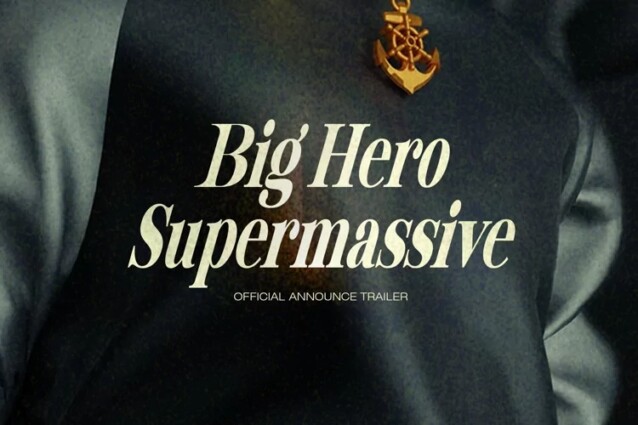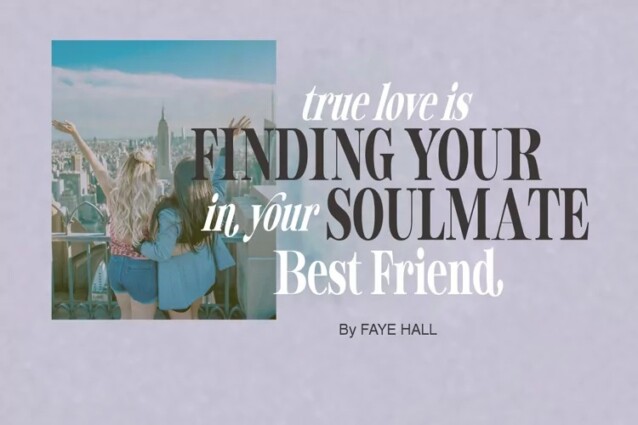
Ponita Font
Ponita Font is a modern elegant serif typeface crafted & designed by Gian Studio. Use this font to create logos, branding, advertisements, craft projects, shirts, decorations, wedding invitations, packaging, stickers, social media, quotes, magazines and more!
You can apply it to designs like social media posts, logos, merchandise, book covers, posters, video content thumbnails, quotes, landing pages, wedding invitations and much more you can create with this great item for any design.